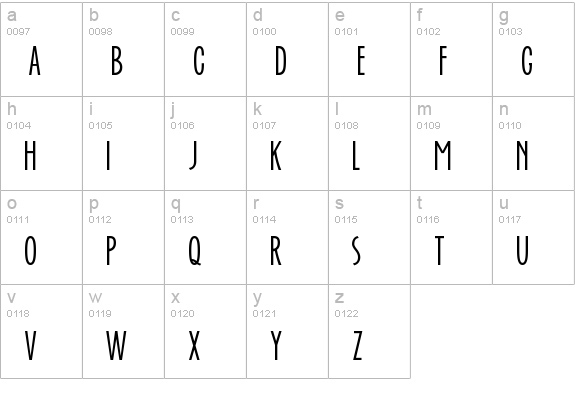
Ever After Font Details
Introducing Ever After font, a whimsical and elegant typeface that brings a touch of fairy tale magic to your designs. With its delicate curves and graceful strokes, Ever After is perfect for adding a touch of enchantment to invitations, greeting cards, and more. This charming font is not only beautiful but also versatile, making it suitable for a wide range of design projects. Whether you're creating wedding invitations, branding materials, or social media graphics, Ever After will bring a touch of romance and sophistication to your work. Best of all, Ever After font is completely free to download at FontsMarket.com. So go ahead and add a sprinkle of magic to your designs with this enchanting typeface today!